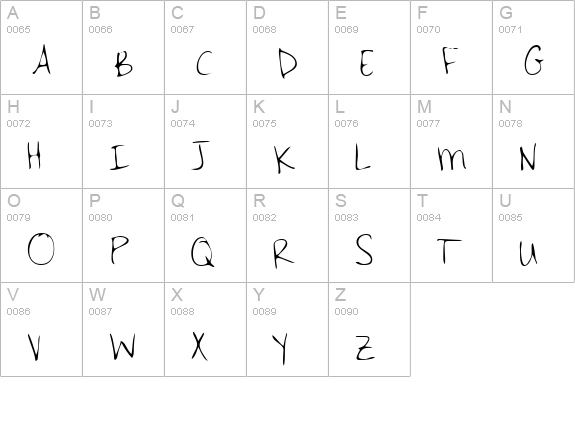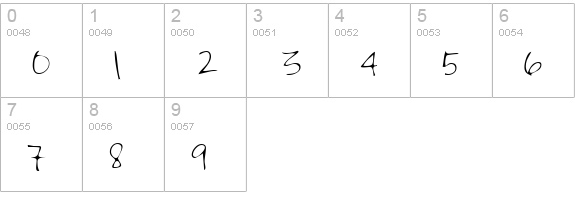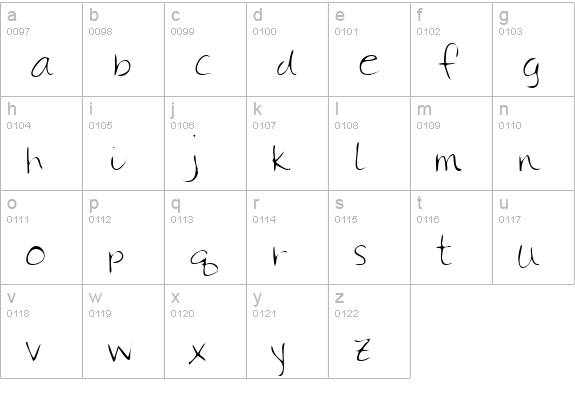
GinasHand Regular Font Details
GinasHand Regular is the standard, neutral variant in the GinasHand typeface family \xE2\x80\x94 well suited to general body text, paragraphs, and standard typographic work.
GinasHand Regular font is a charming and versatile typeface that exudes a sense of warmth and friendliness. Its flowing lines and gentle curves give off a handmade feel, making it perfect for a variety of design projects. Whether you're creating invitations, greeting cards, or branding materials, GinasHand Regular font will add a touch of whimsy and elegance to your work. And the best part? GinasHand Regular font is completely free to download at FontsMarket.com. This means you can easily access this beautiful font and use it in your projects without any cost. Don't miss out on this wonderful opportunity to enhance your designs with the delightful GinasHand Regular font. Download it now and see the magic it brings to your creations!